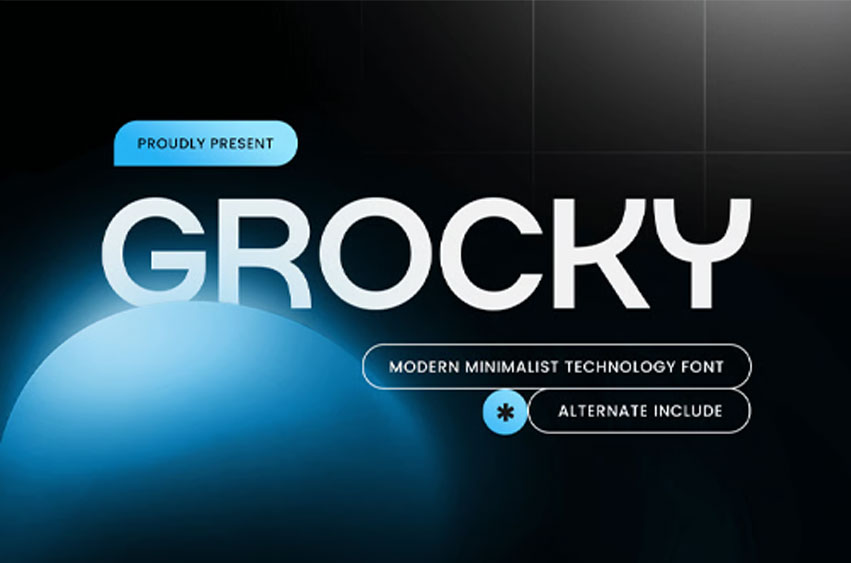
Grocky Font is a modern minimalist techno font designed to deliver a clean, futuristic look with sharp clarity. Built with precise geometry and a stripped-back aesthetic, this typeface creates a tech-forward tone that feels sleek, efficient, and confidently modern.
Designed for digital-first branding and contemporary layouts, GROCKY works seamlessly across logos, wordmarks, UI/UX design, website headers, app screens, posters, signage, presentations, and social media campaigns. Its minimalist structure keeps typography crisp and readable, while the techno character adds a subtle futuristic edge without looking overly complex.
Whether you’re building a startup identity, a technology brand system, or a modern interface concept, GROCKY provides a refined techno voice that keeps your design clean, professional, and future-ready.
Inspiration Behind GROCKY
GROCKY is inspired by modern interface design, clean digital grids, and minimalist tech branding—where precision and simplicity create trust and innovation. Built for logo systems and digital communication, it supports sleek identity work, UI typography, and modern campaign headlines that need a sharp, futuristic feel.
GROCKY Font Features
• Minimalist techno letterforms with clean geometric structure
• Optimized for branding, logos, and digital interface typography
• Strong readability for headlines and modern layouts
• OpenType features for polished professional typesetting
• Tech branding, startup identity, and modern logo design
• UI/UX, app interfaces, and website headers
• Digital campaigns, banners, and social media graphics
• Posters, signage, and futuristic promotional layouts
• Presentations, pitch decks, and modern corporate visuals
Build a sharp, future-clean identity with GROCKY—crafted for minimalist techno branding with modern precision.